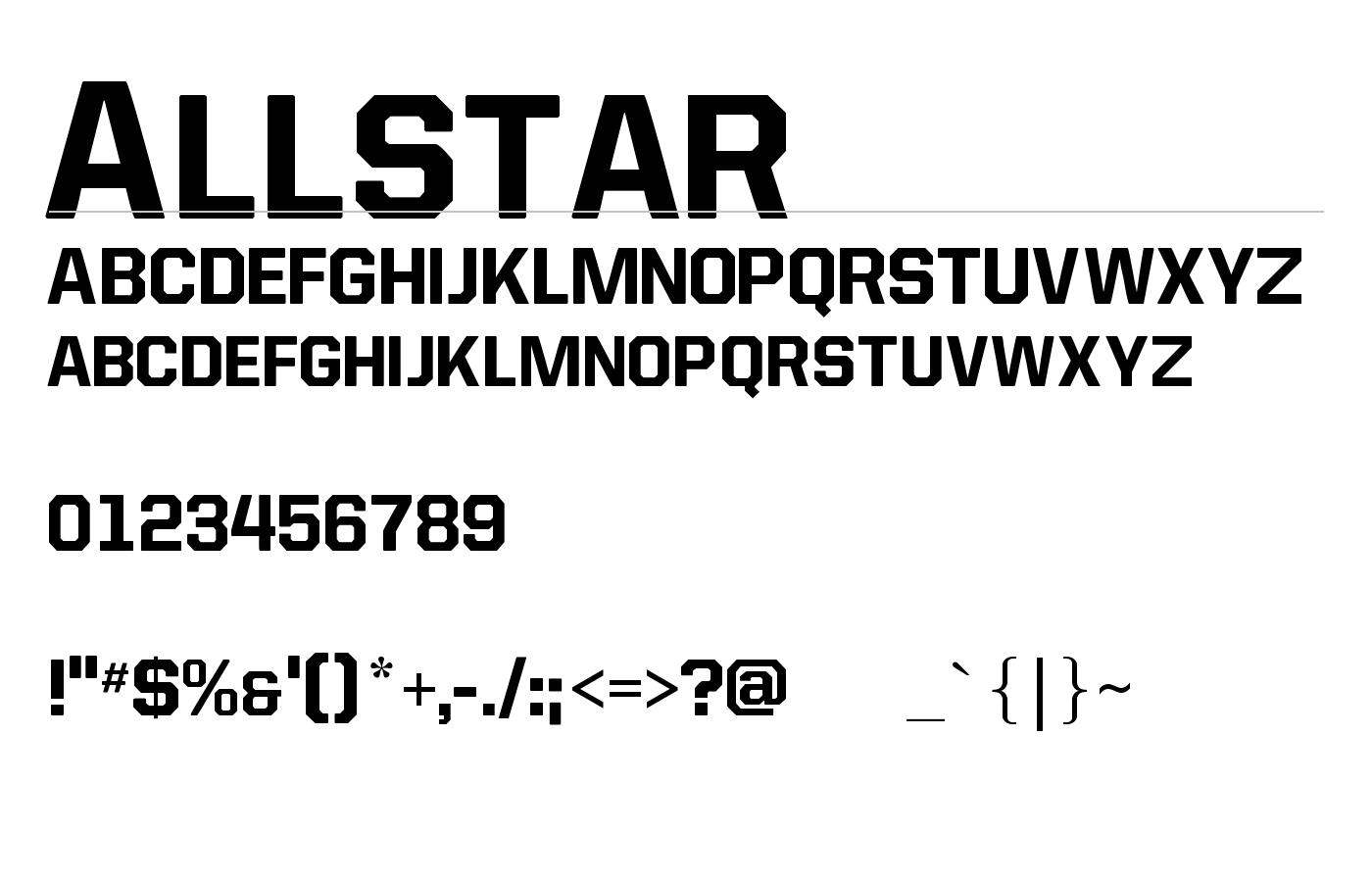
Allstar4 is a bold, angular sans serif font with a strong, mechanical feel, ideal for creating a modern, industrial look. Its sturdy, monospaced letterforms and high x-height ensure excellent readability, making it well-suited for headlines, branding, and digital displays that require a confident and impactful presence. This font works perfectly for sports, technology, and urban-themed designs where a tough, dynamic style is desired.
Allstar4 Font
About Allstar4 Font